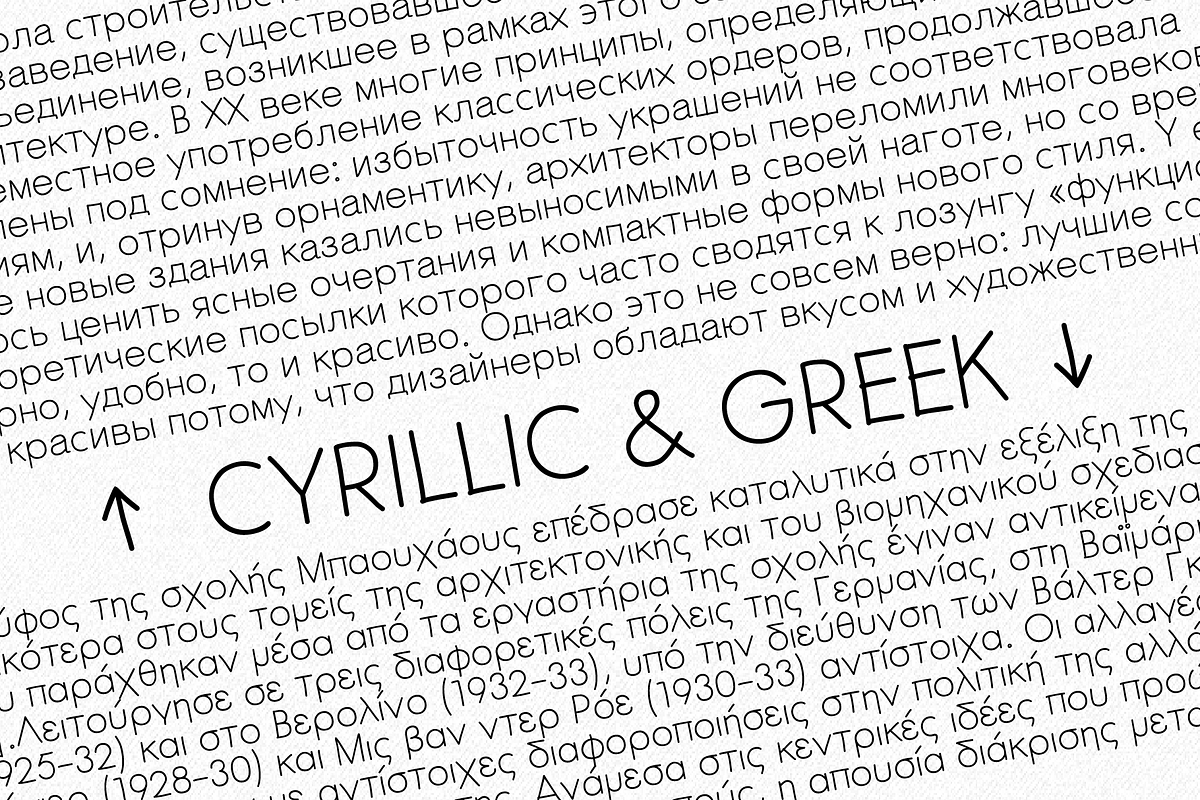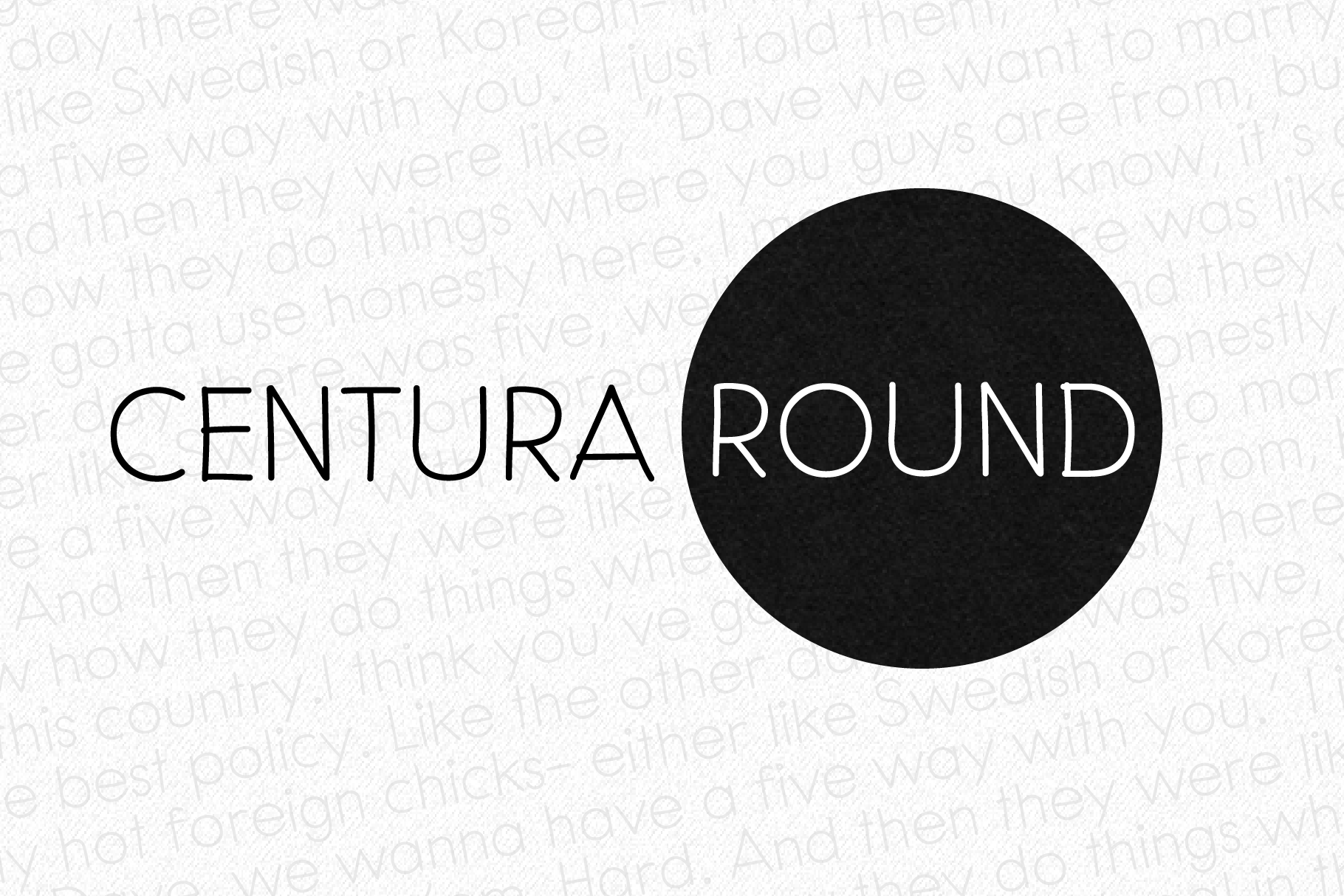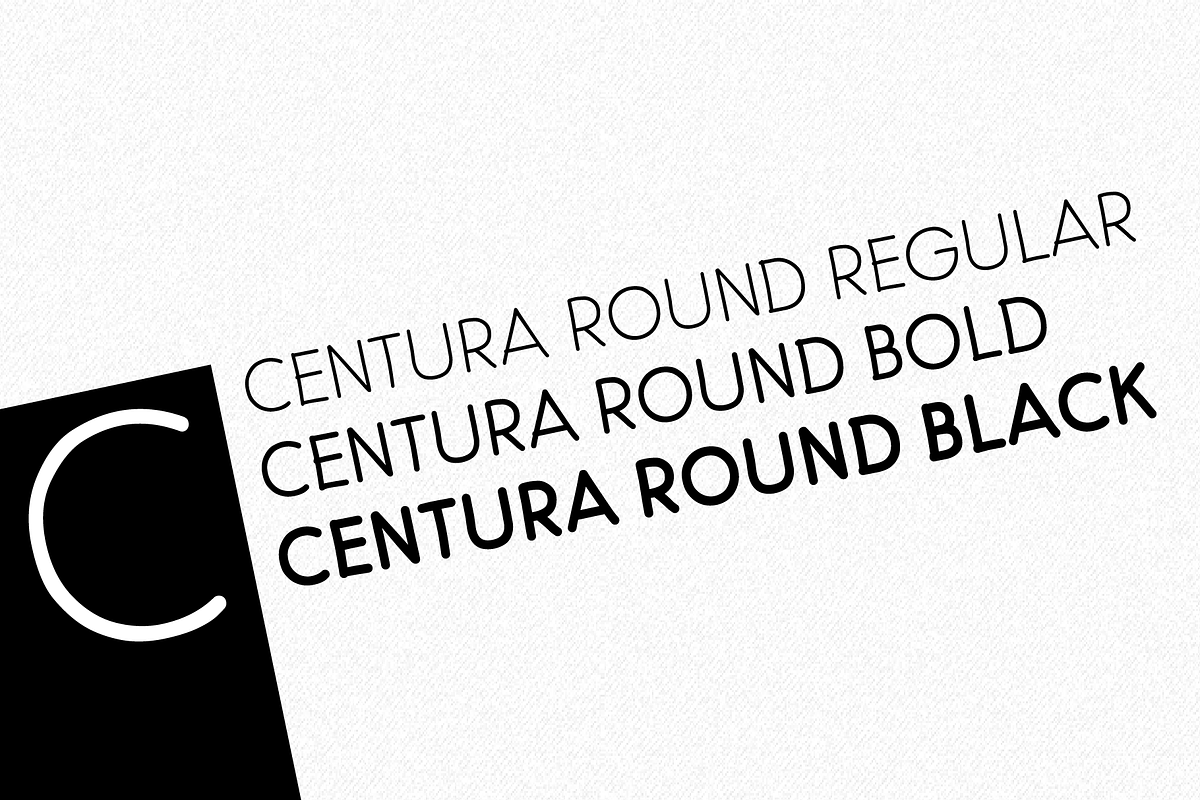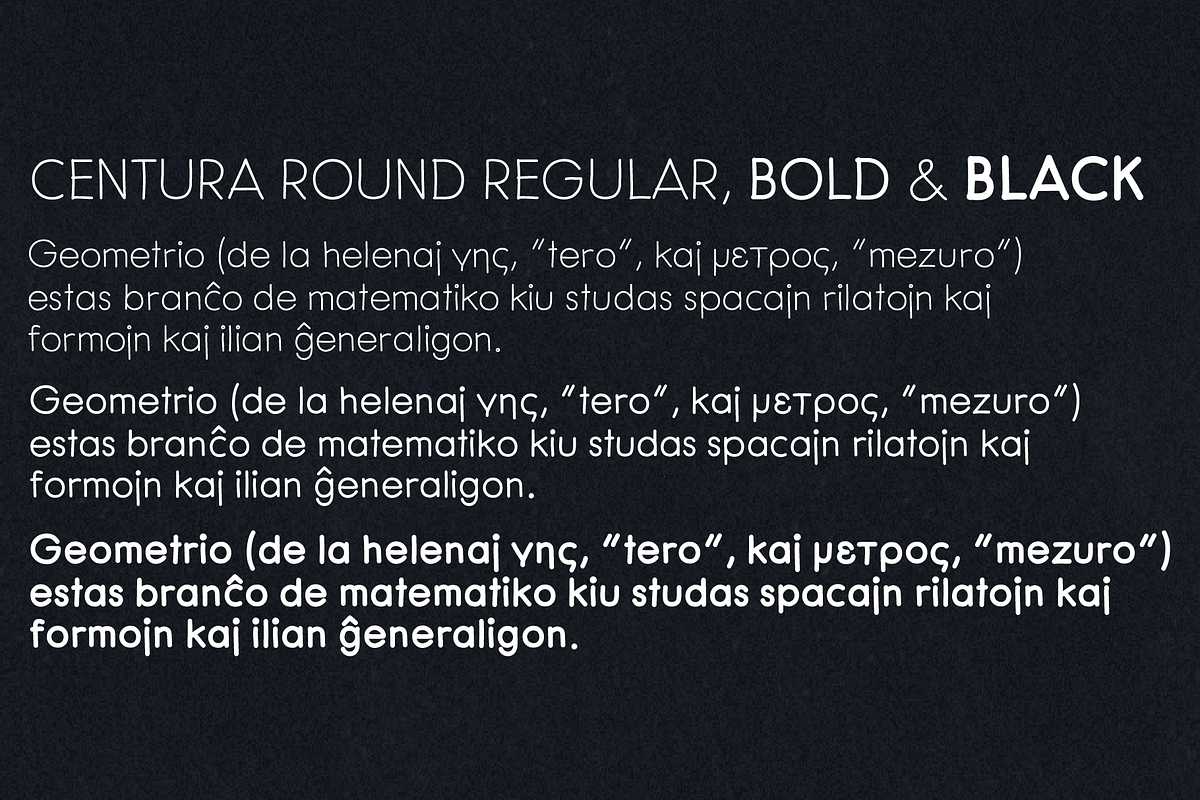
Centura Round - 3 fonts
Centura Round is a hand-drawn, sans serif font inspired by geometric types from the first half of the 20th century like Futura and Twentieth Century.
This font is a good choice for adding a personal hand lettered touch, as opposed to geometric fonts with perfectly formed lines and curves. It supports Central European, Greek and Cyrillic codepages, and will be suited for both display and text use.